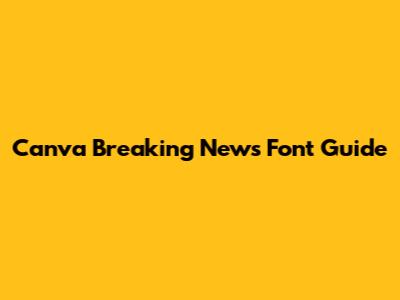
Canva Breaking News Font Guide
Hey everyone! Ever seen those super impactful news graphics and wondered how they get that breaking news vibe? A lot of it comes down to the font choice, guys. And guess what? You can totally nail this look using Canva. Today, we're diving deep into the world of Canva breaking news fonts, breaking down what makes them work and how you can use them to make your own designs pop. We'll explore different font styles, how to pair them, and some pro tips to ensure your designs grab attention faster than a live news flash. So, whether you're creating social media posts, presentations, or even a quick announcement, understanding the power of typography is key. Canva offers a massive library, but knowing which fonts to pick for that urgent, official, or dramatic news feel can be a game-changer. We're going to make sure you leave here armed with the knowledge to find and use the perfect fonts to make your message unmissable.
What Makes a Font Feel Like 'Breaking News'?
So, what's the secret sauce behind those fonts that scream 'breaking news'? It's all about impact and clarity, folks. Breaking news fonts usually lean towards being bold, strong, and easily readable, even from a distance or at a glance. Think about the most dramatic news headlines you've seen – they don't mess around with delicate serifs or overly ornate scripts, right? They go for fonts that command attention. We're talking about sans-serif fonts primarily. Sans-serifs, meaning fonts without the little feet (serifs) at the ends of strokes, tend to look modern, clean, and direct. This directness is crucial for news, where the message needs to be understood instantly. Common characteristics you'll find in breaking news fonts include: strong, thick strokes, clear, open letterforms (meaning the spaces within letters like 'O' or 'A' are well-defined), and often, a slightly condensed or extended width to fit more information or create a specific visual emphasis. They need to convey urgency, importance, and a sense of authority. It’s not just about picking a font; it’s about picking a font that communicates the right feeling. Imagine seeing a major announcement in a playful script font – it just wouldn't have the same weight, would it? That's why designers and news outlets carefully select typefaces that evoke seriousness, credibility, and that undeniable sense of immediacy. We're aiming for fonts that are not just seen, but felt, making the viewer pause and pay attention. It’s the visual equivalent of a siren – it demands your focus. We’ll explore specific examples within Canva later, but understanding these core principles is your first step to mastering the breaking news aesthetic.
Top Canva Fonts for That Breaking News Vibe
Alright, let's get down to the nitty-gritty: the actual fonts you can find and use in Canva to get that authentic breaking news look. Canva has a seriously massive font library, and while that's awesome, it can also be a bit overwhelming. But don't worry, I've got you covered with some top picks that consistently deliver that impactful, urgent feel. First up, we have Montserrat. This is a fantastic all-rounder. It's a geometric sans-serif that's super clean, modern, and comes in a wide range of weights from thin to black. For breaking news, you'll want to lean on the Bold or Black weights. Montserrat's clarity and strong presence make it perfect for headlines that need to cut through the noise. Next, let's talk about Oswald. Oswald is another excellent choice, known for its condensed, yet impactful style. It's designed to be used in headlines and is perfect for when you need to pack a lot of information into a small space without sacrificing readability. Its slightly narrower form factor gives it a real sense of urgency and directness. If you want something with a bit more character but still maintaining that newsy feel, Anton is your guy. Anton is a very bold, condensed sans-serif that's almost unapologetically strong. It's great for making a statement and really grabbing eyeballs. For a slightly different flavor, consider Bebas Neue. This font is incredibly popular for its tall, condensed, all-caps appearance. It gives a very classic, almost retro news headline feel, but remains incredibly modern and impactful. It’s fantastic for short, punchy headlines. Don't forget about Roboto Condensed. While Roboto itself is a very versatile sans-serif, its condensed version offers that tight, impactful look ideal for news. It balances modernity with a no-nonsense attitude. Finally, for a touch of a more classic, authoritative feel, Merriweather (though a serif font) can sometimes work in its boldest weights for specific contexts, but generally, stick to the sans-serifs for that immediate breaking news feel. Remember, the key is to use these fonts in their boldest weights and often in all caps for maximum impact. Experiment with these, and you'll find the perfect fit for your design needs. They are all readily available within Canva's free and pro versions, making them accessible for everyone.
How to Use Breaking News Fonts Effectively in Canva
Now that you've got a killer list of fonts, how do you actually use them in Canva to get that awesome breaking news effect? It's not just about picking the font; it's about how you deploy it, guys. Effective typography is all about context and hierarchy. For breaking news, urgency and clarity are paramount. So, let's break down some key strategies. First, boldness is your best friend. As mentioned, for fonts like Montserrat, Oswald, or Anton, always opt for the heavier weights – Bold, Extra Bold, or Black. This makes your headline instantly command attention. Don't be shy with it! Second, consider capitalization. Breaking news headlines are frequently in ALL CAPS. This adds to the sense of importance and officiality. Experiment with sentence case versus all caps to see what impact you want to achieve. All caps generally convey more urgency. Third, color choice matters. Black, white, red, and sometimes deep blues are classic news colors. Red, in particular, signifies urgency and alerts. Use high contrast – a white font on a dark background or a black font on a light background. Think about how news channels use color to highlight key information. Fourth, layout and size. Your breaking news headline should be the focal point of your design. Make it large and prominent. Position it strategically, usually at the top or in a clear, central area. Don't overcrowd your design; give the headline space to breathe. A clean, uncluttered background will make your bold typography stand out even more. Fifth, pairing fonts. While your headline might be a bold sans-serif, your body text or supporting information should be more readable and less dominant. Often, a slightly lighter weight of the same font family or a complementary, simpler sans-serif works well. For example, if your headline is Anton, your sub-headline or body text could be a lighter Montserrat or Open Sans. This creates a clear visual hierarchy. Sixth, add subtle graphic elements. Sometimes, a simple underline, a colored bar behind the text, or a small icon can enhance the breaking news feel. Canva offers plenty of elements you can use to achieve this without making your design look cluttered. Think of a thin red line under a headline, or a dark rectangular background for the text. Finally, consider the context. Is this a literal news alert, or are you using the breaking news style metaphorically for a major announcement or sale? Adjust the intensity accordingly. For a real alert, go all out. For a more casual announcement, maybe dial back the boldness slightly. Mastering these techniques will ensure your Canva designs don't just display information, but communicate it with the urgency and impact it deserves.
Advanced Tips for Stunning News Graphics in Canva
Alright, you've got the fonts, you know the basics of using them. Ready to level up your game, guys? Let's dive into some advanced tips to make your breaking news graphics in Canva truly shine and look super professional. We're talking about adding those little touches that separate good from great. First off, explore font weights and styles beyond just bold. While bold is king for headlines, Canva often provides italicized or even light versions of these fonts. You can use a lighter weight for secondary information or a slightly less urgent point, creating more nuanced hierarchy. Also, some fonts have condensed and extended versions – playing with these can create dynamic layouts. Think about using a condensed font for a tight date/time stamp or an extended font for a very impactful, short slogan. Secondly, mastering kerning and spacing. This is a bit more advanced, but crucial for professional typography. Kerning is the space between specific pairs of letters (like 'AV' or 'WA'), and tracking is the overall spacing between all letters in a word or line. While Canva's manual control over kerning is limited, you can adjust letter spacing (tracking) subtly to improve readability and visual appeal, especially for large headlines. Sometimes slightly wider spacing can make a bold font feel less overwhelming, or tighter spacing can increase its density and impact. Third, use negative space strategically. Don't be afraid of empty areas on your canvas. Negative space (or white space) is crucial for allowing your important elements, especially the typography, to breathe and stand out. A well-placed headline surrounded by ample negative space has far more impact than one crammed into a busy design. It directs the viewer's eye exactly where you want it. Fourth, layering text with graphics and images. Breaking news often involves powerful imagery. In Canva, try layering your text over images or graphics. Use semi-transparent overlays or color blocks behind your text to ensure it remains legible against a busy background. For example, placing a dark, slightly transparent rectangle behind your white headline text can make it pop even on a vibrant photo. Fifth, consider animation. For social media, a subtle text animation can dramatically increase engagement. Canva offers various text animation options. A simple fade-in, slide-in, or typewriter effect for your breaking news headline can add dynamism. Just don't overdo it; keep it professional and impactful, not distracting. Sixth, create templates. Once you find a style and font combination that works exceptionally well for your breaking news graphics, save it as a template. This will save you tons of time and ensure consistency across all your designs. You can duplicate a page or save your design as a template to reuse later. Finally, test, test, test. Always preview your design on different devices and screen sizes. What looks great on a desktop might need adjustment on a mobile phone. Ensure your breaking news headline is still the star of the show, no matter how it's viewed. By incorporating these advanced techniques, your Canva breaking news designs will not only convey information but do so with professional polish and undeniable impact.
Conclusion: Own the Breaking News Look with Canva
So there you have it, folks! We've journeyed through the essential elements that define a breaking news font, explored some of the best options available right in Canva, and armed you with practical tips for using them effectively. Remember, the goal is to achieve clarity, impact, and a sense of urgency. Whether you're announcing a major update, a special offer, or actual breaking news, the right typography can make all the difference. Don't underestimate the power of a strong, bold sans-serif font used strategically. By selecting fonts like Montserrat, Oswald, Anton, or Bebas Neue in their heaviest weights, and employing techniques like strong capitalization, high contrast color schemes, and smart layout, you can create graphics that demand attention. We've also touched upon advanced techniques like playing with negative space, layering text effectively, and even using subtle animations to enhance your designs further. The key takeaway is that Canva makes these powerful design tools accessible to everyone. You don't need to be a seasoned graphic designer to create eye-catching news-style graphics. Experiment with the fonts we've discussed, play around with different arrangements, and most importantly, have fun with it! Your message deserves to be heard loud and clear, and with the right fonts and techniques, you can ensure it cuts through the clutter and makes a lasting impression. Go forth and create some incredible, attention-grabbing designs! Your audience will thank you for it.